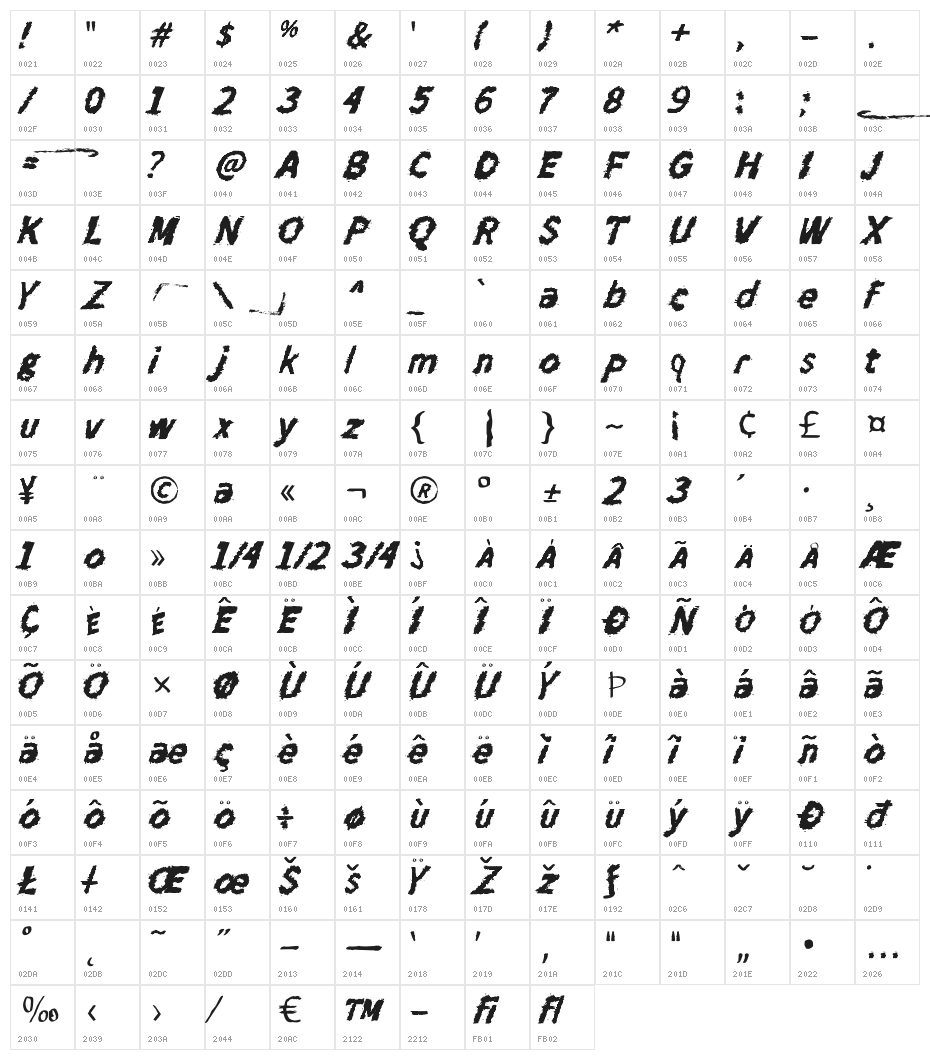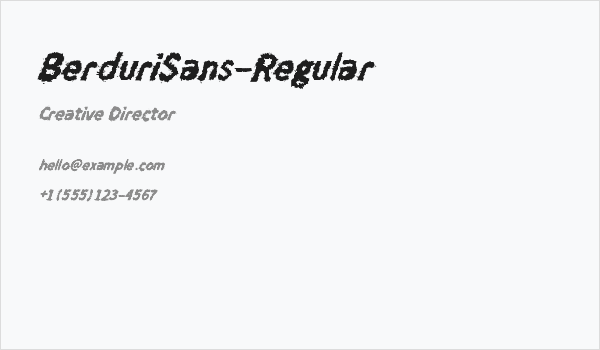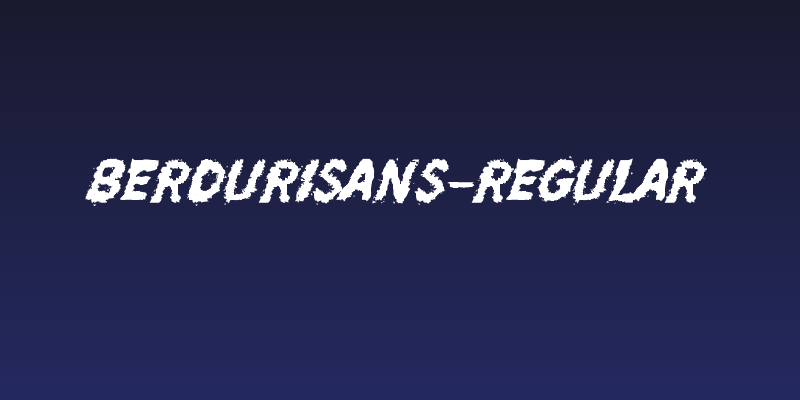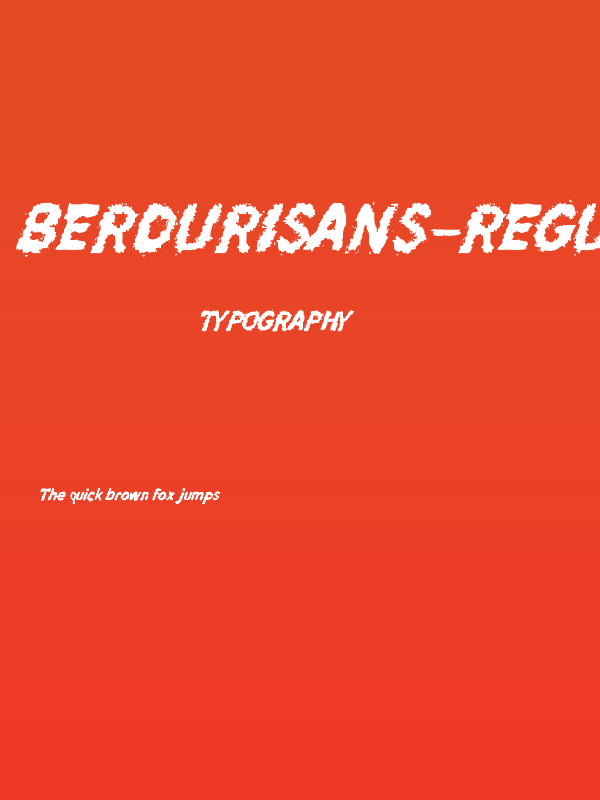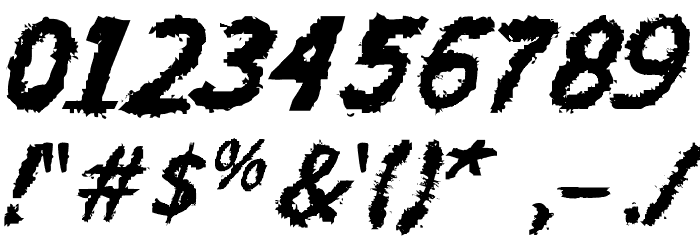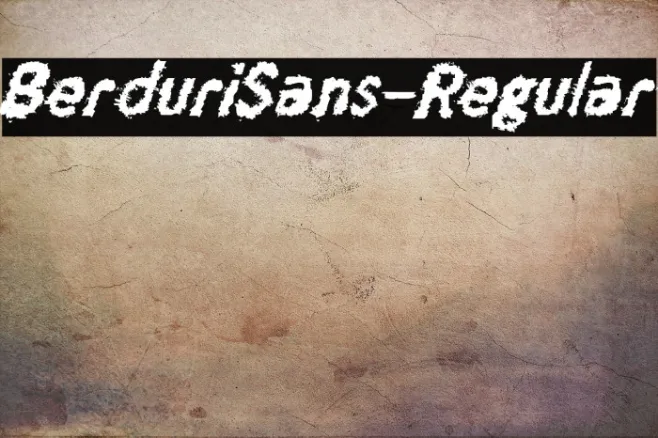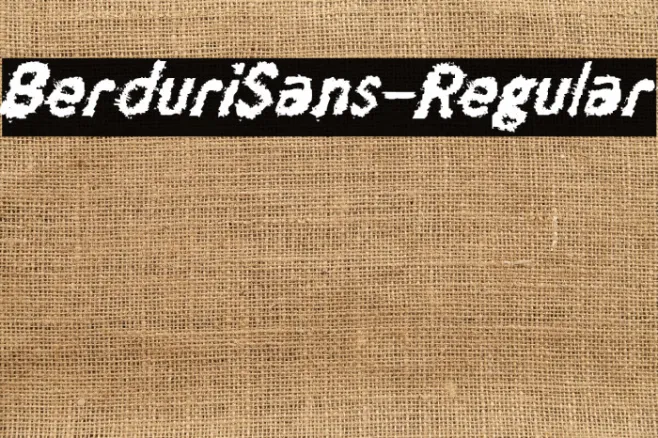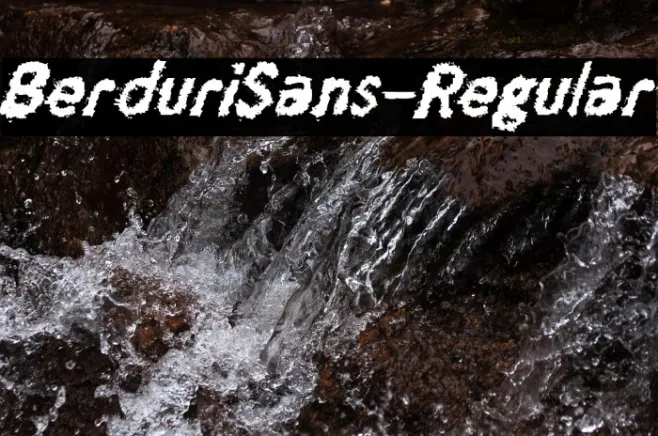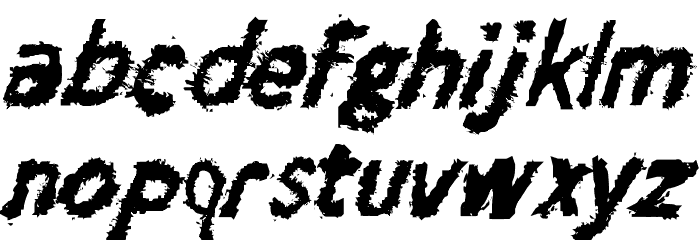
BerduriSans-Regular Font
BerduriSans-Regular Description
This font features a bold and rugged design, characterized by its distressed and textured appearance. The letters have an irregular, jagged edge that gives them a dynamic and energetic feel. The uppercase and lowercase characters maintain a consistent style, with a slightly condensed form that enhances their boldness. Numbers and special characters follow the same design principles, ensuring a cohesive look across all glyphs. This font's unique style makes it stand out, perfect for projects that require a strong visual impact.
| Proposed Projects | Ideal for posters, album covers, branding for edgy or adventurous products, and any design needing a bold statement. |